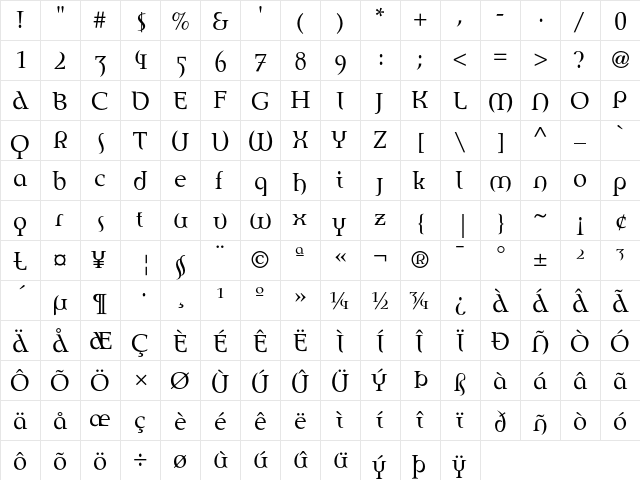
Envision Roman
Design Context for Envision Typeface
Envision takes a measured approach to typography — its balanced proportions and neutral character make it a reliable workhorse for both digital and print work.